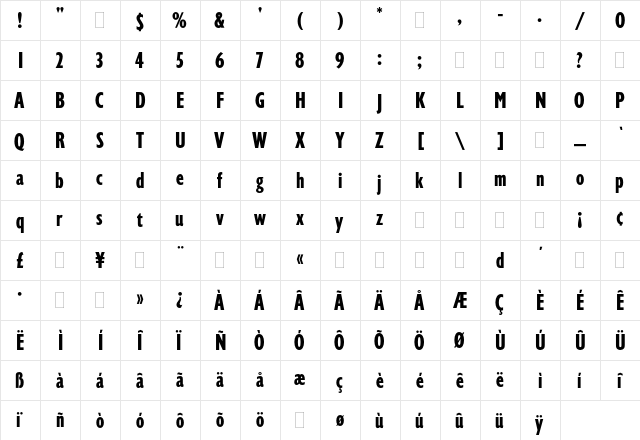
Gill Display Compressed Plain
Design Context for Gill Display Compressed Typeface
Gill Display Compressed is built around its visual character rather than neutral utility — its distinctive forms are designed to make an impression at display sizes.
Font Pairing: Pair with a clean neutral sans-serif for body copy to let Gill Display Compressed's character lead without overwhelming the composition.
Pro Tip: Use Gill Display Compressed exclusively at display sizes — it was designed to be seen, not read at length. Let a neutral companion handle body copy.